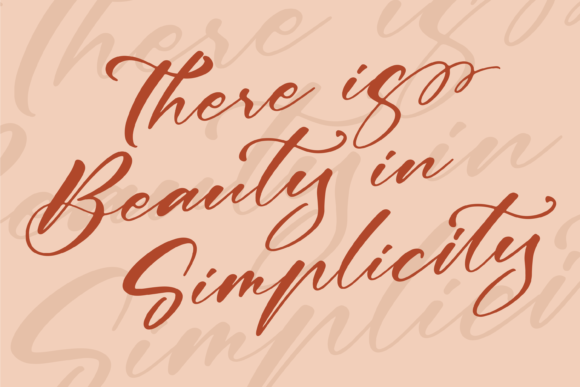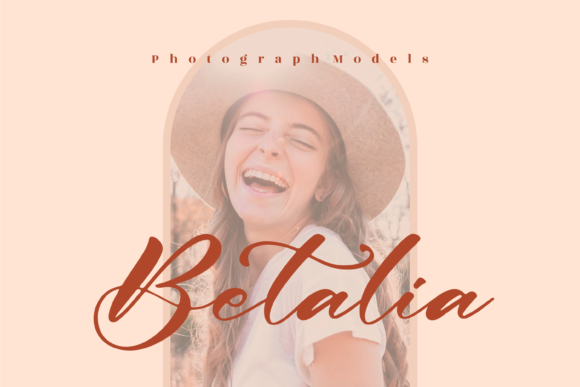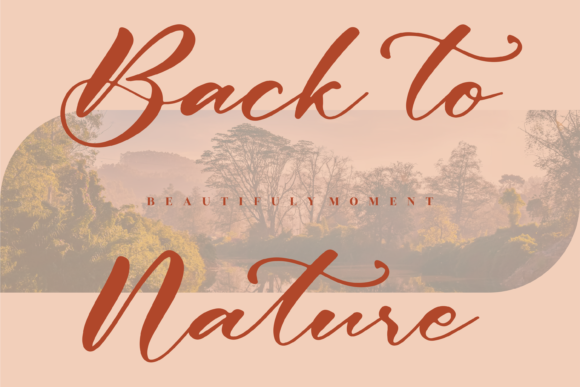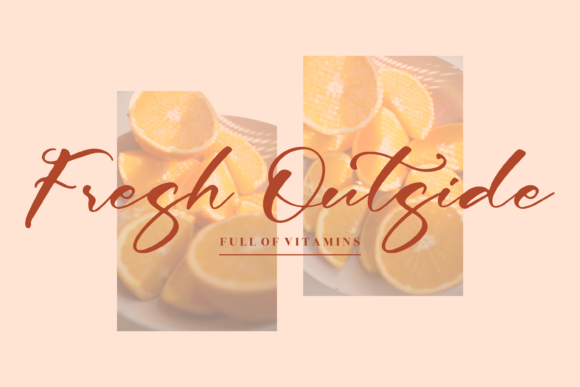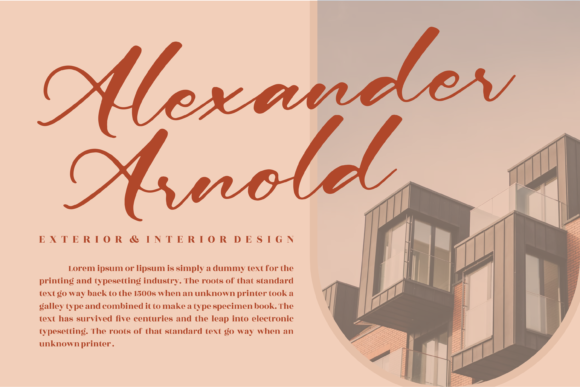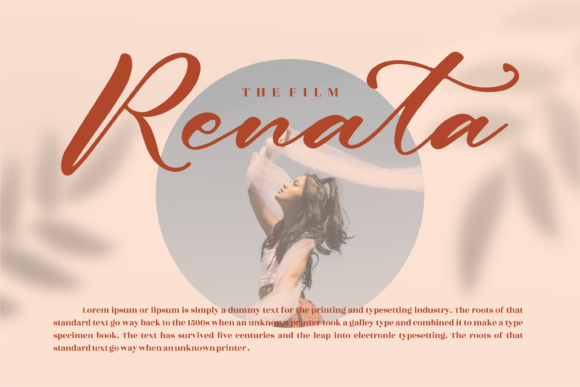
Betta Peach Font: Elevate Your Design Projects with Elegant Script Style
Are you a designer or crafter looking for a beautiful script font to elevate your projects? Look no further than Betta Peach Font. This stunning script font is perfect for a wide range of design applications, from logos and branding projects to homeware designs, product packaging, and more.
What is Betta Peach Font?
Betta Peach Font is a beautiful script font designed to add a touch of elegance and sophistication to your design projects. Its flowing lines and cursive style make it perfect for creating beautiful and eye-catching designs that stand out from the crowd.
What Can I Use Betta Peach Font For?
Betta Peach Font is incredibly versatile and can be used for a wide range of design projects, including:
- Logos and branding projects: Create a stunning logo or brand identity with Betta Peach Font that reflects your business’s personality and style.
- Homeware designs: Add a touch of elegance to your homeware designs, such as ceramics, textiles, and wallpaper.
- Product packaging: Make your product packaging stand out with beautiful and eye-catching designs created with Betta Peach Font.
- Mugs and quotes: Create inspiring and beautiful quotes and designs for mugs, tumblers, and other drinkware.
- Posters and prints: Design stunning posters and prints for your business or personal projects.
- Shopping bags and t-shirts: Create eye-catching designs for shopping bags and t-shirts that showcase your brand’s personality.
- Book covers and name cards: Design beautiful book covers and name cards that make a lasting impression.
- Invitation cards and greeting cards: Create stunning invitation cards and greeting cards for special occasions.
- Labels and photography: Use Betta Peach Font to create beautiful labels and watermarks for your photography projects.
- Special events: Design elegant and sophisticated materials for special events, such as weddings, parties, and conferences.
Why Choose Betta Peach Font?
So why choose Betta Peach Font for your design projects? Here are just a few reasons:
- Elegant and sophisticated: Betta Peach Font has a beautiful, flowing script style that’s perfect for creating elegant and sophisticated designs.
- Versatile: Betta Peach Font can be used for a wide range of design projects, from logos and branding to homeware designs and product packaging.
- Easy to read: Despite its elegant style, Betta Peach Font is easy to read and understand, making it perfect for designs that need to communicate a message.
- Unique: Betta Peach Font has a unique and distinctive style that will set your designs apart from the crowd.
Tips for Using Betta Peach Font
Here are a few tips for getting the most out of Betta Peach Font:
- Use it sparingly: Betta Peach Font is a beautiful and elegant font, so use it sparingly to add impact and emphasis to your designs.
- Experiment with colors: Betta Peach Font looks stunning in a range of colors, so experiment with different colors to find the perfect combination for your design.
- Pair it with other fonts: Betta Peach Font pairs well with other fonts, so try combining it with a bold or sans-serif font to create visual interest.
Betta Peach Font is a beautiful and elegant script font that’s perfect for a wide range of design projects. Its flowing lines and cursive style make it perfect for creating stunning and eye-catching designs that stand out from the crowd. Whether you’re a designer or crafter, Betta Peach Font is a great choice for adding a touch of elegance and sophistication to your projects.